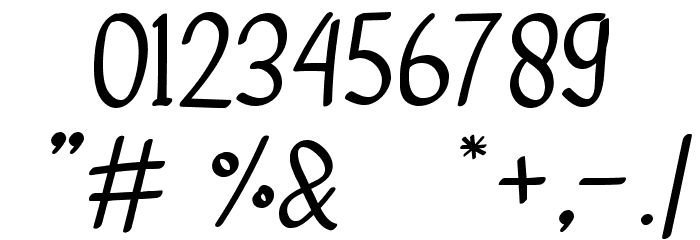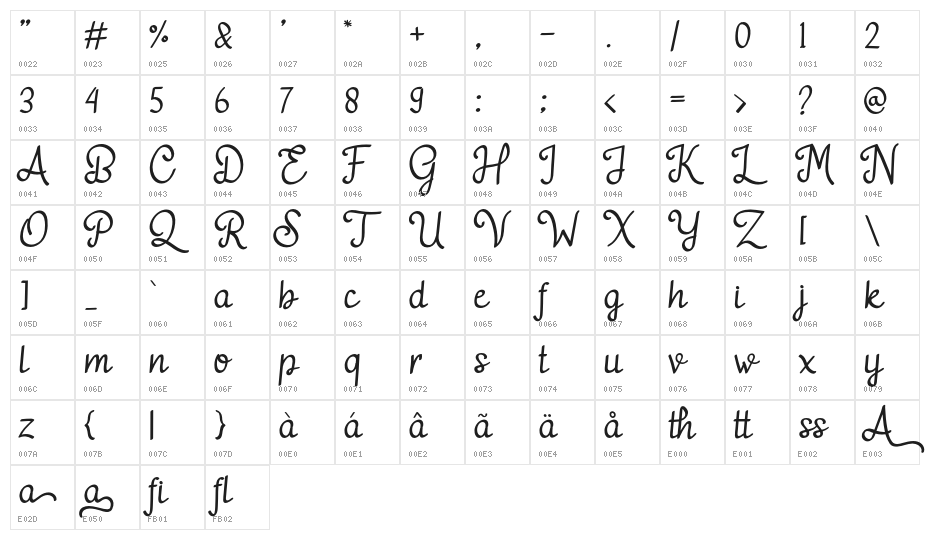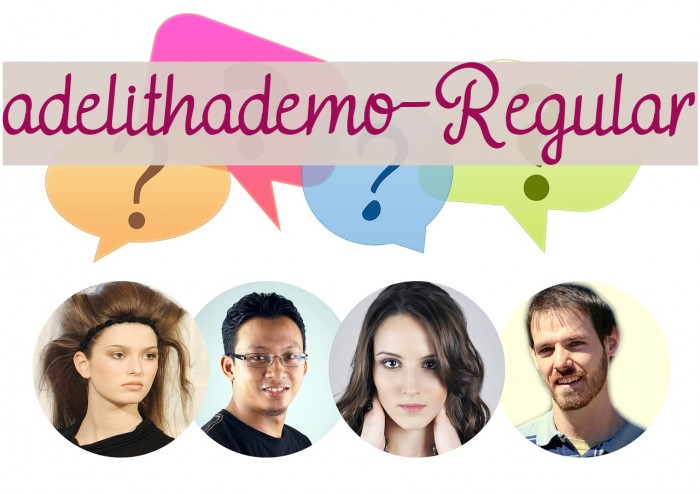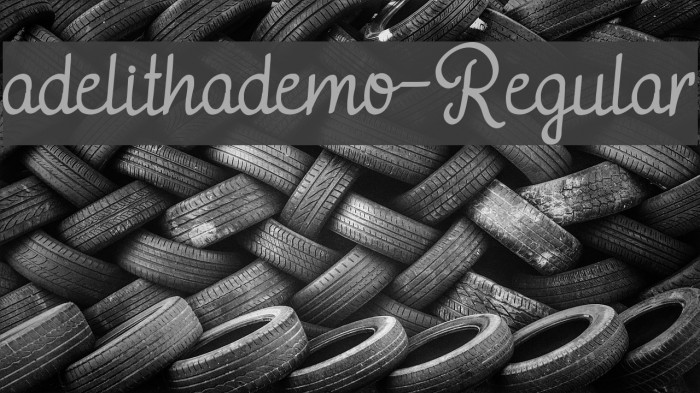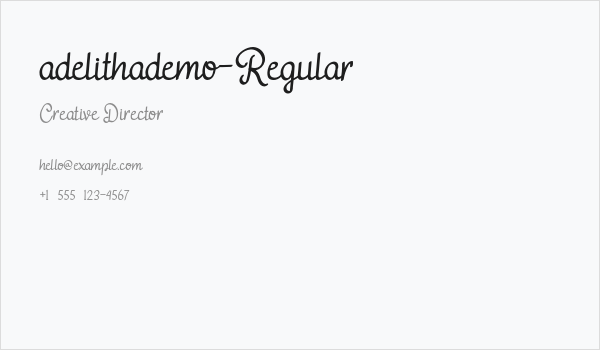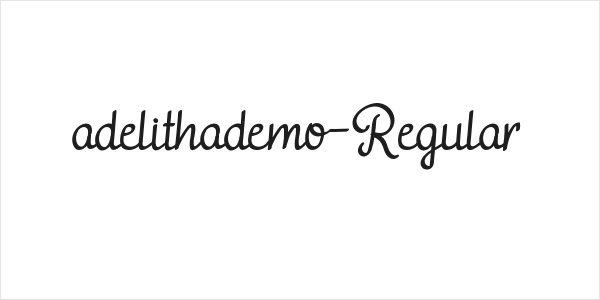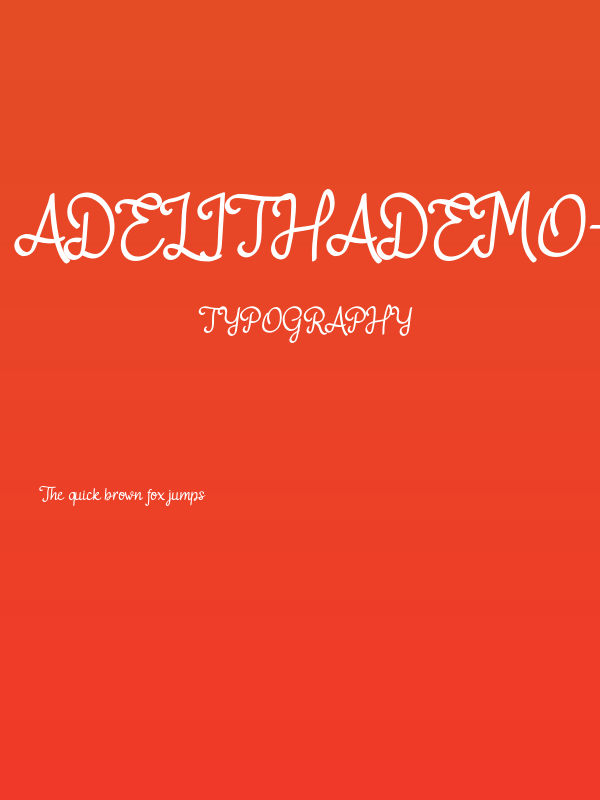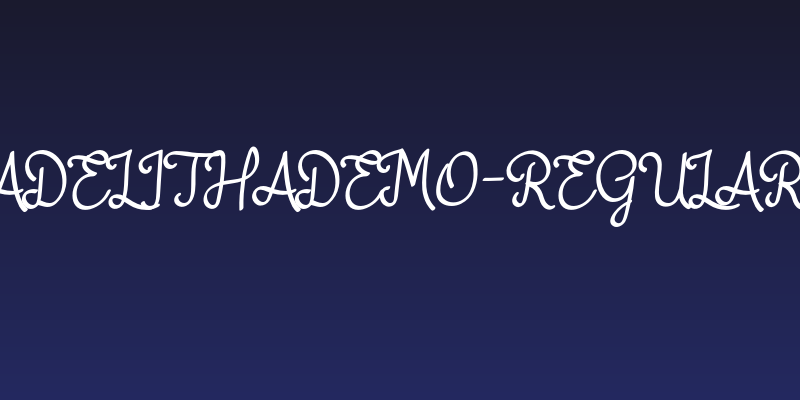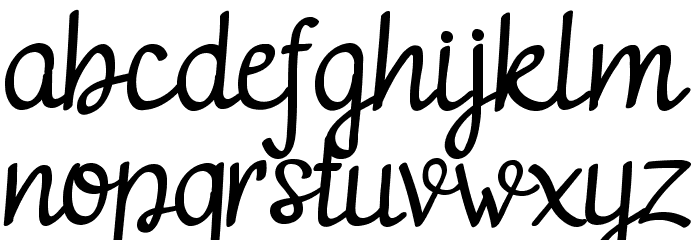
adelithademo-Regular Font
adelithademo-Regular Description
This font features a playful and elegant script style with a handwritten appearance. The uppercase letters are characterized by their flowing, cursive lines, while the lowercase letters maintain a consistent and smooth stroke. The numbers and special characters are designed to complement the overall script style, offering a cohesive look. The font's design is both artistic and legible, making it suitable for a variety of creative applications. Its unique style is perfect for adding a personal touch to any project.